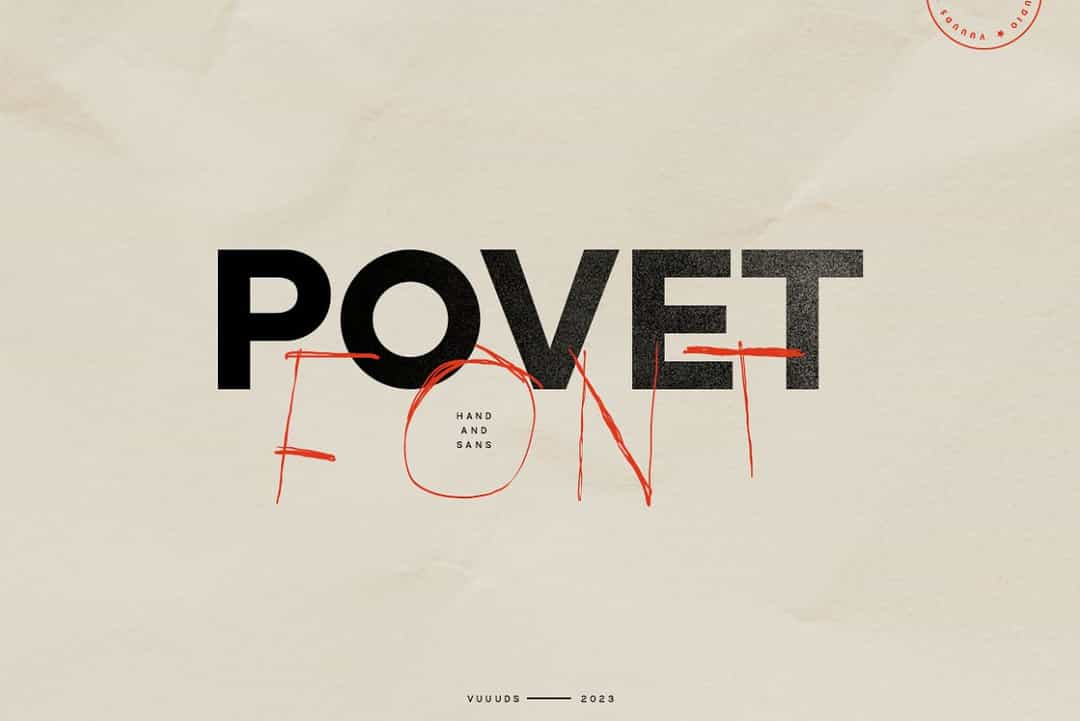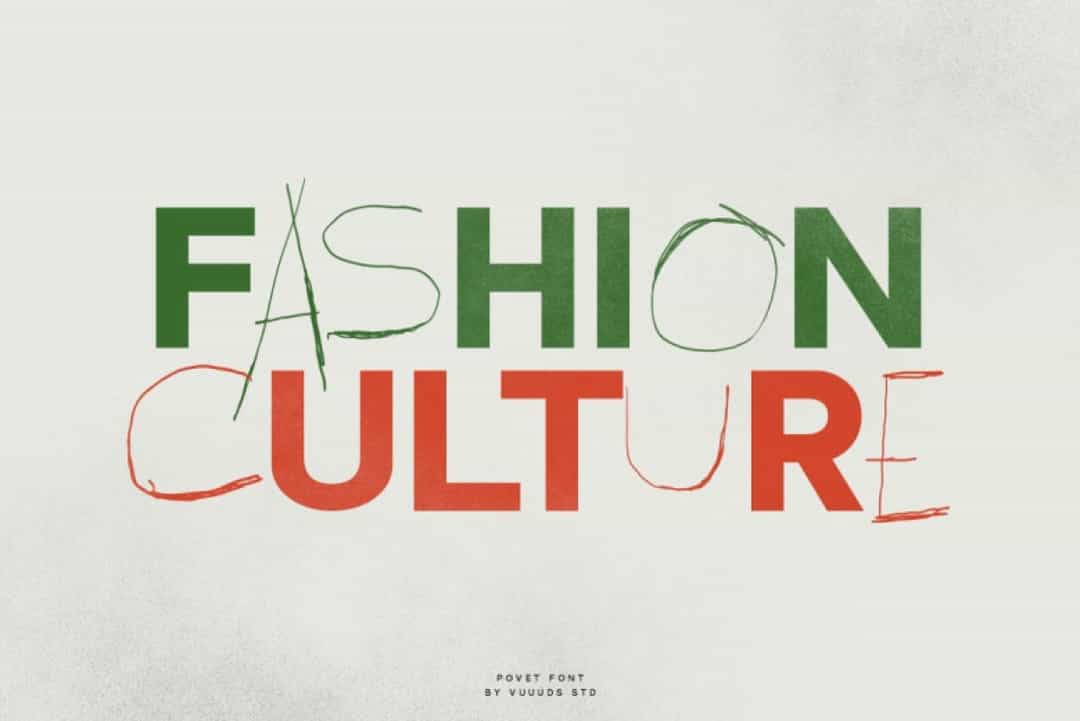
Povet is an innovative experimentation between Sans and Hand fonts, each letter carefully created. The font comes complete with stunning alternate glyphs which can be accessed using Font Book for Mac users or Windows Character Map for Windows users; instructions can also be found within this zip archive.